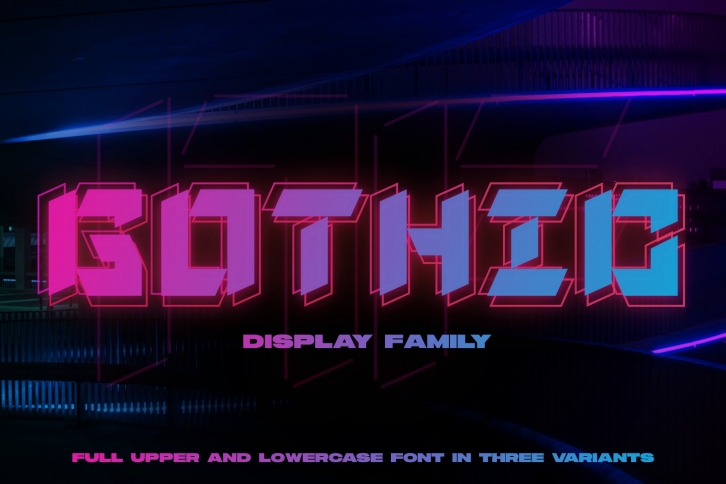
NF Gothic is a cross between cyberpunk, blackletter, calligraphic brushes, and noir thrillers, with enough flexibility to be used in any project requiring unique display type that catches your audience's attention.
NF Gothic Regular: The standard font, featuring sharp cuts and clean geometric angles, ready to take your designs to the next level.
NF Gothic Outline: A special outlined version of the regular font, making it easier to work with outlines without having to rasterize your type (and having to go back and do everything all over again when you want to go in a different direction).
NF Gothic Cutout: Inspired by neon signs from the future, this version is composed of a monoweight line with the corners cut out, giving a blocky, lineart style perfect for bringing a neon glow vibe to your compositions.